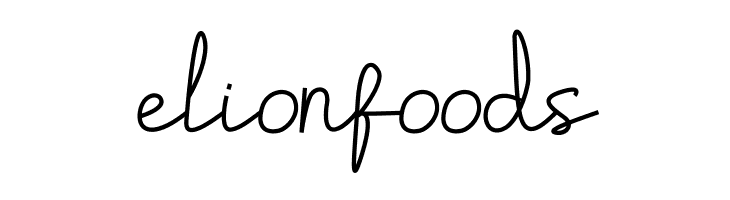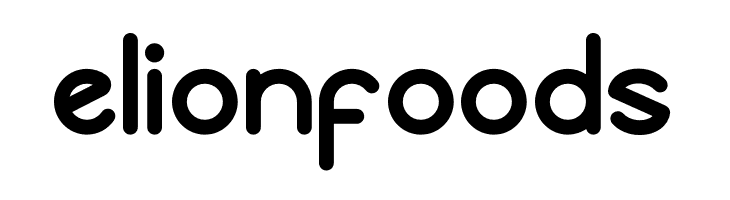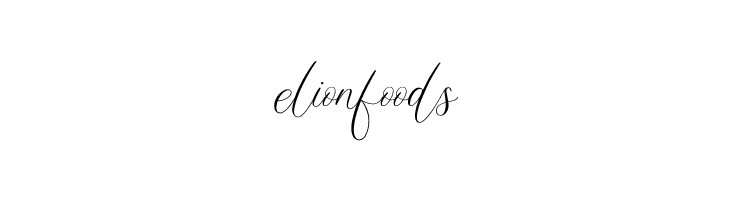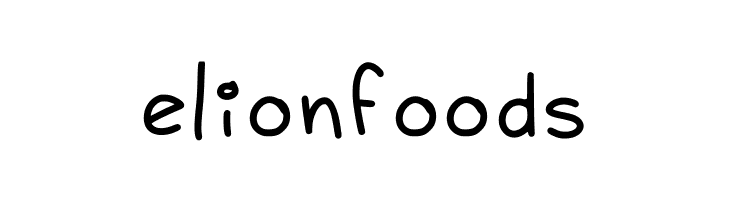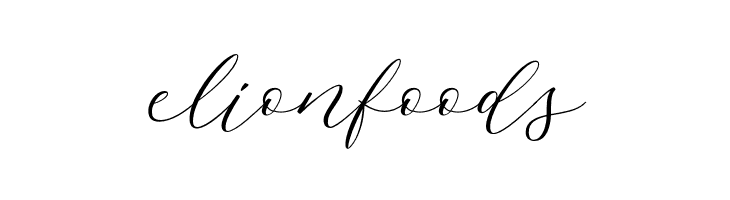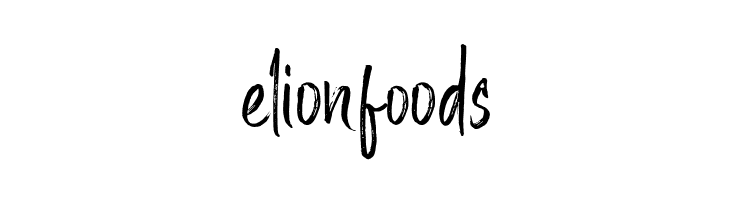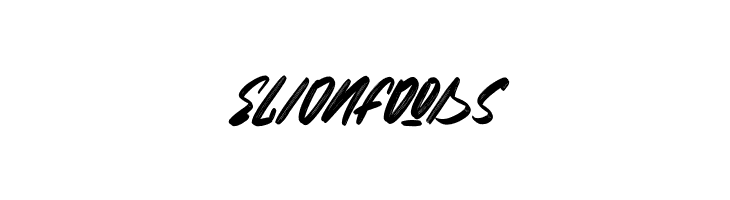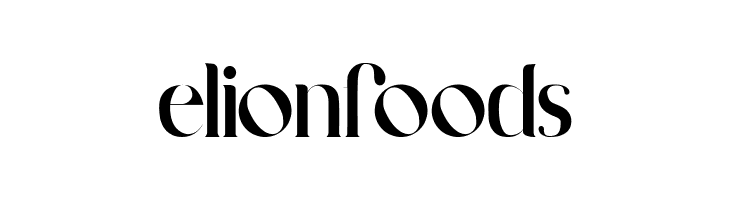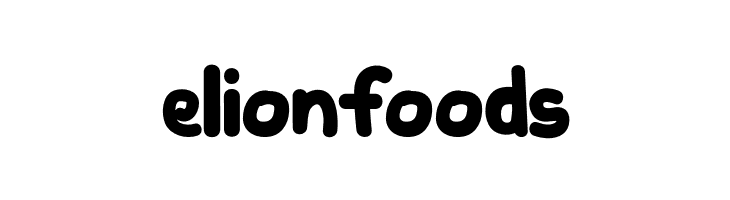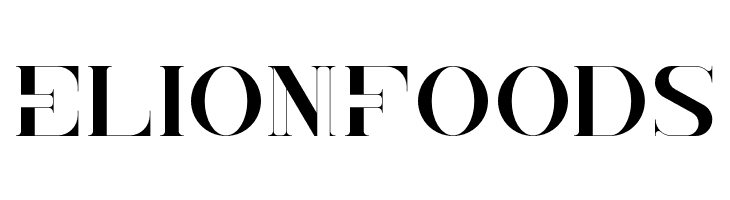
A bold, playful handwritten font with a casual and dynamic style.
A bold, blackletter-style font with sharp, angular lines and intricate details.
A playful, handwritten font with fluid, irregular strokes.
A playful, rounded font with smooth curves and consistent stroke width.
A playful, handwritten font with tall, narrow letters and a casual style.
An elegant and sophisticated script font with flowing cursive strokes.
A playful, handwritten-style font with smooth, rounded edges and a casual vibe.
A playful and whimsical font with curly, looping strokes and elegant flourishes.
A playful, hand-drawn font with a friendly and informal style.
A flowing, elegant script font with a handwritten style.
An elegant and flowing script font with ornate, cursive letterforms.
A casual, handwritten font with a playful and informal style.
A dynamic, brush-style font with expressive strokes and fluid forms.
A bold, energetic script font with a brush-like, handcrafted style.
A modern, geometric font with clean lines and a minimalist aesthetic.
An elegant, cursive font with flowing, ornate letters.
A dynamic, expressive handwritten font with fluid strokes and a casual style.
A bold, dynamic brush script font with sweeping strokes and a lively, informal style.
A sophisticated script font with flowing, interconnected letters and ornate flourishes.
A modern, high-contrast font with elegant serifs and geometric influences.
Elegant cursive script with flowing, handwritten style.
A playful, handwritten script font with a whimsical and fluid style.
A playful, handwritten font with rounded, consistent strokes.
A playful, hand-drawn font with bold, rounded characters and a whimsical style.
A fluid and elegant script font with a handwritten style.
A bold, handwritten font with a playful and informal style.
A playful, casual handwritten font with an informal, organic style.
A playful handwritten font with smooth curves and a casual, friendly style.
A sophisticated calligraphy font with flowing, interconnected strokes and intricate flourishes.
A bold, high-contrast serif font with elegant curves and strong presence.
A graceful script font with fluid, interconnected strokes and a natural handwriting style.
A geometric, minimalistic font with sharp angles and straight lines.
A high-contrast, modern font with sharp angles and bold strokes.